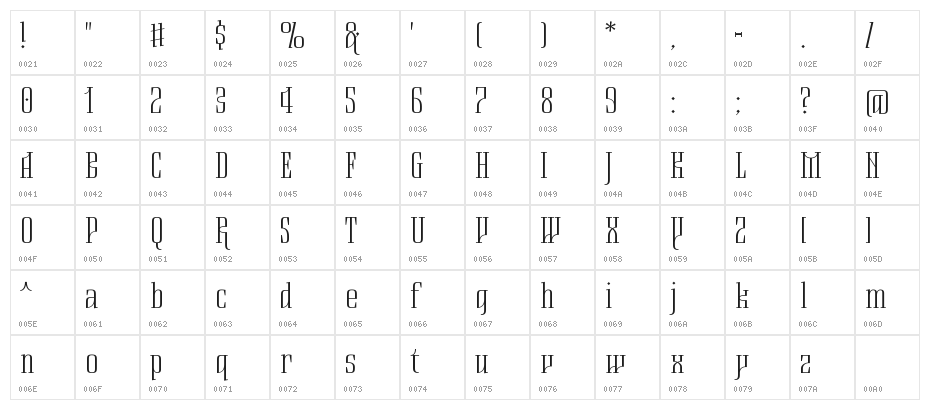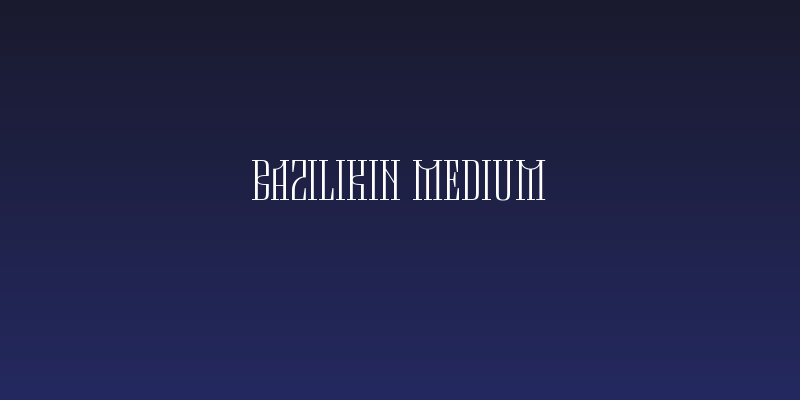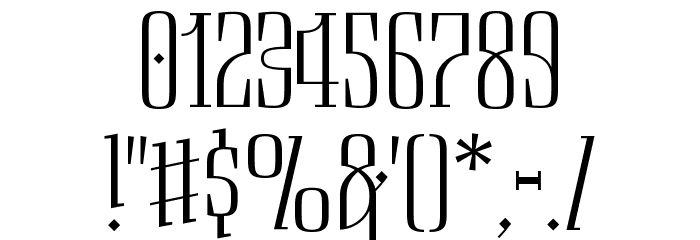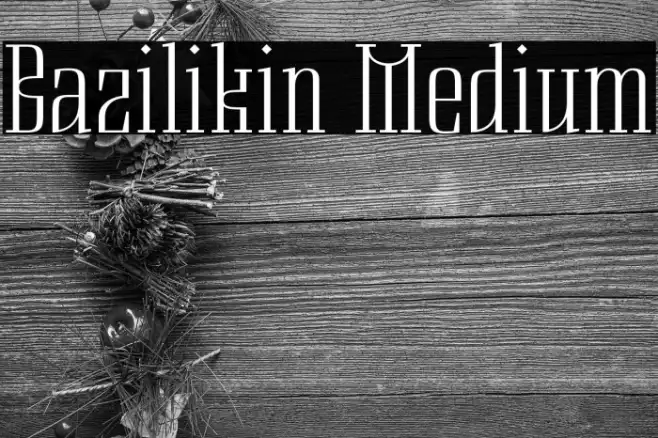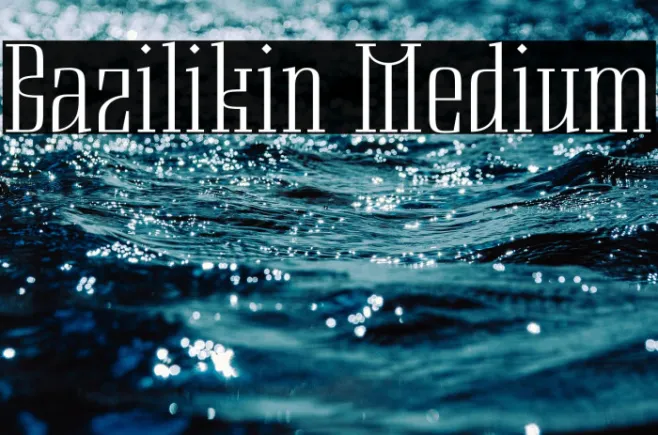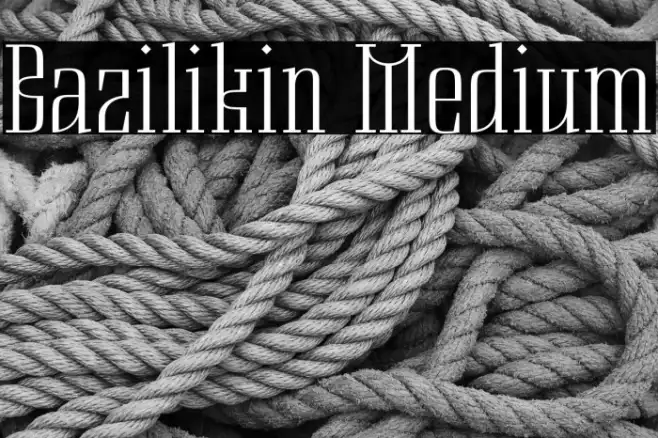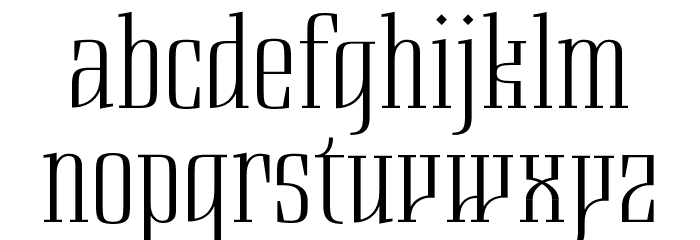
Bazilikin Medium Font
Bazilikin Medium Description
This typeface features a distinctive and elegant design with tall, narrow characters that exhibit a modern yet classic appeal. The uppercase letters are particularly elongated, giving a sense of sophistication and formality. The lowercase letters maintain a consistent style, complementing the uppercase with their slender forms. The numerals are clear and easy to read, while the special characters add a touch of uniqueness with their creative shapes. Overall, this font combines traditional serif elements with a contemporary twist, making it versatile for various design needs.
| Overall Style | Modern Classic |
| Use Case | Headlines, Logos, Editorial design |
| Proposed Projects | Ideal for editorial design, luxury branding, invitations, and sophisticated advertising campaigns. |